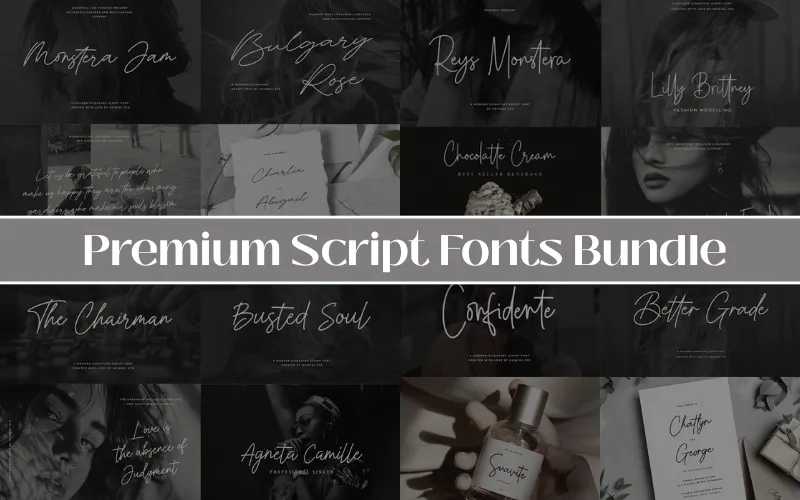
Add style, flair, and personality to your designs with the Premium Script Fonts Bundle — a luxury collection of 17 carefully designed script fonts. Each typeface combines modern elegance with smooth, handwritten strokes and includes stylistic alternates, swashes, ligatures, and extra glyphs so you can tailor your typography to any mood or project.
• Better Grade
• Bulgary Rose
• Busted Soul
• Challans
• Confidente
• Duskt Rose
• Hayward
• Love Self
• Merysville
• Monstera Jam
• Only Youth
• Present Anthem
• Reys Monstera
• Richford
• Royal Brand
• Spearfish
• The Chairman
• Modern, elegant script styles with smooth handwritten strokes
• Alternates, ligatures, swashes, and additional glyphs for customization
• Perfect for branding, wedding invitations, social media graphics, logos, packaging, and premium marketing materials